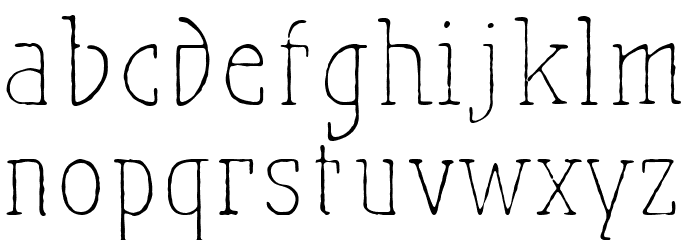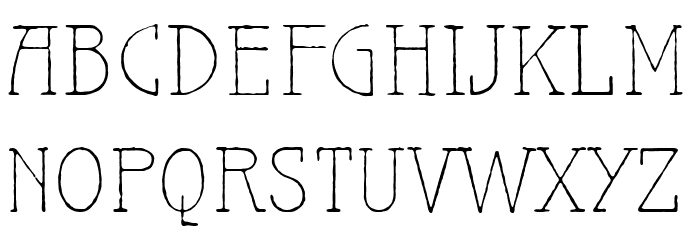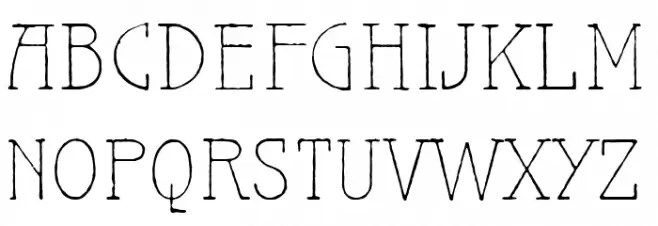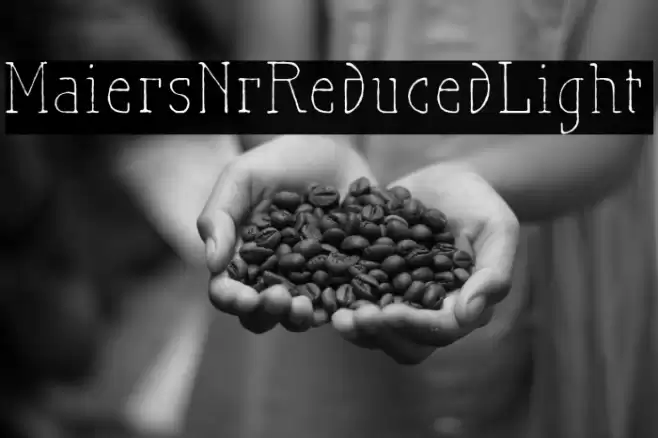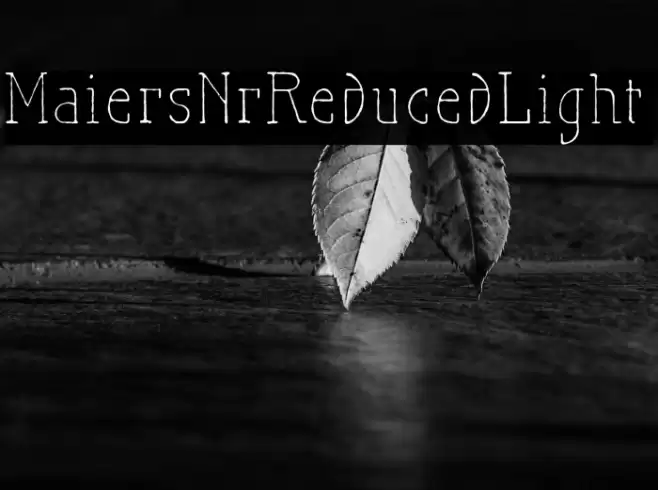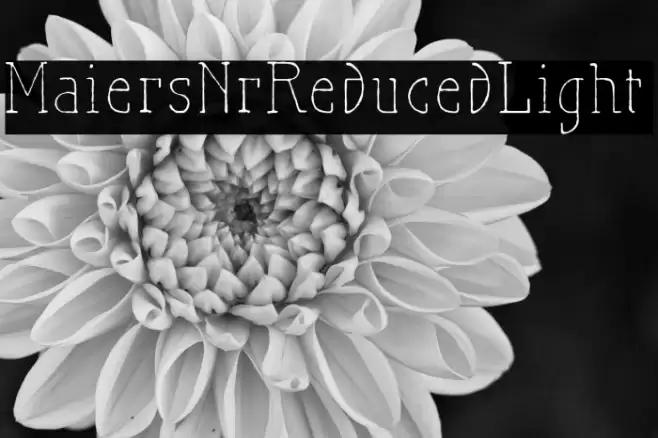
MaiersNr.Reduced-Light Font
This font features a distinctive and artistic design with a hand-drawn appearance. The characters have a unique, slightly irregular stroke that gives them a whimsical and vintage feel. The uppercase letters are tall and slender, with subtle variations in line thickness that add to the handcrafted look. The lowercase letters maintain this style, with some characters featuring charming loops and curves. The numbers and special characters are consistent with the overall aesthetic, providing a cohesive and visually appealing set. This font's playful yet elegant style makes it suitable for creative projects.
A whimsical, hand-drawn font with a vintage feel and irregular strokes.
- Proposed Projects: Ideal for invitations, greeting cards, artistic posters, and branding projects that require a personal touch.
- Overall Style: Vintage
- Use Case: Logos, Artistic projects, Invitations